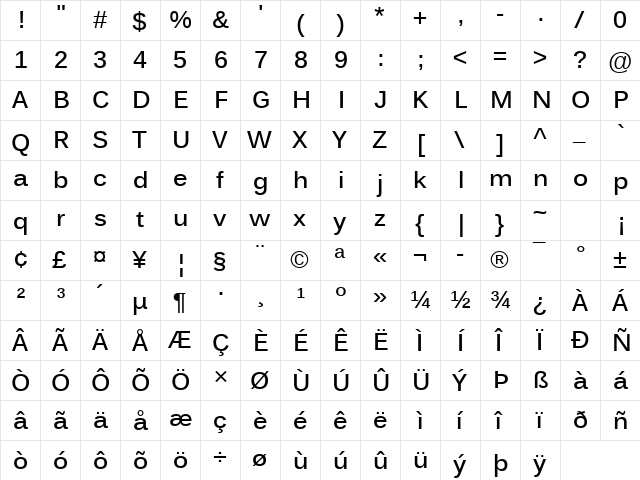
Kalinga Bold
Design Context for Kalinga Typeface
Kalinga offers clean, dependable letterforms without strong stylistic allegiance, making it a practical choice for designers who need flexibility. The heavy weight commands attention and anchors typographic hierarchies.
Pro Tip: Use Kalinga in both headline and body roles to test its range before committing to a single application.